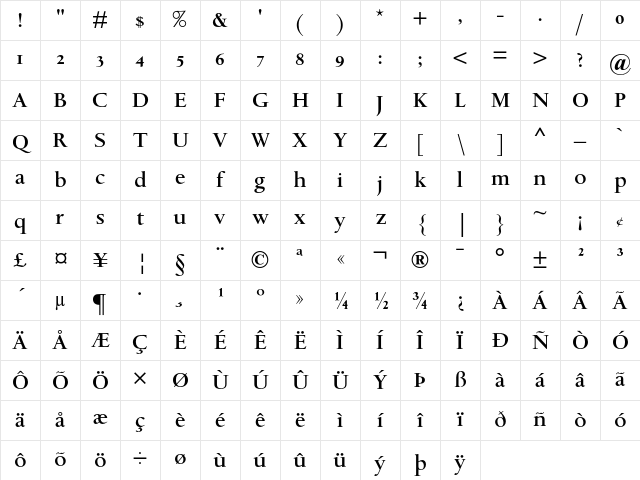
Spectrum MT Semi Bold Oldstyle Figures
Style: Semi Bold Oldstyle Figures
Design Context for Spectrum MT
Spectrum MT carries the refined structure of traditional serif typography, with bracketed terminals and considered proportions that communicate credibility and craft. Its bold stroke weight gives it real presence on the page.